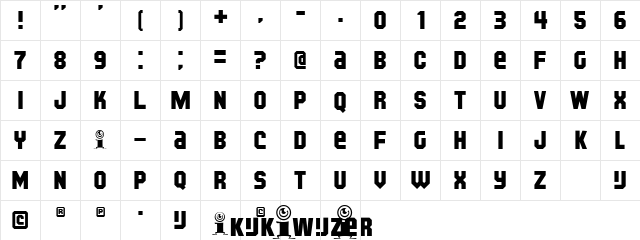
Kijkwijzer Bold Free Font
Kijkwijzer Bold
Style: Bold
Design Context for Kijkwijzer
Kijkwijzer is a composed and adaptable typeface that performs quietly and consistently across a wide range of design contexts. Its bold stroke weight gives it real presence on the page.